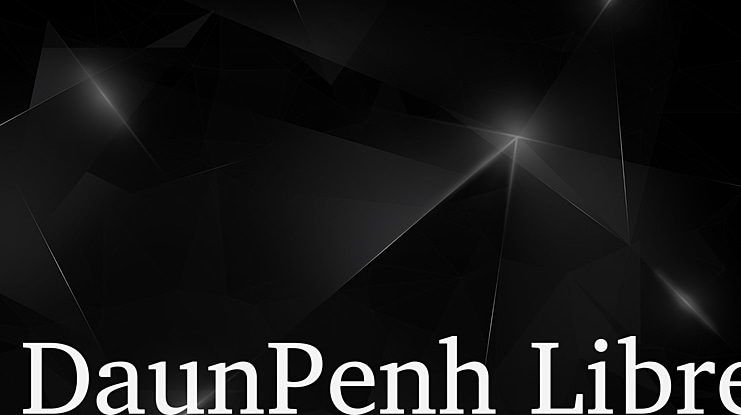
DaunPenh Libre is based on Charis SIL, but the exceptions are that the numbers are copied from DaunPenh and the Khmer was copied, merging Charis SIL with DaunPenh.
518 characters. The font is in active development.